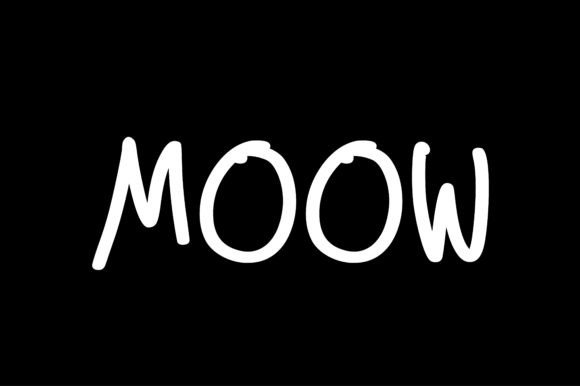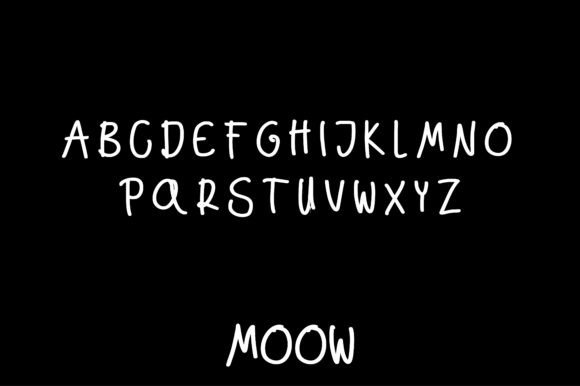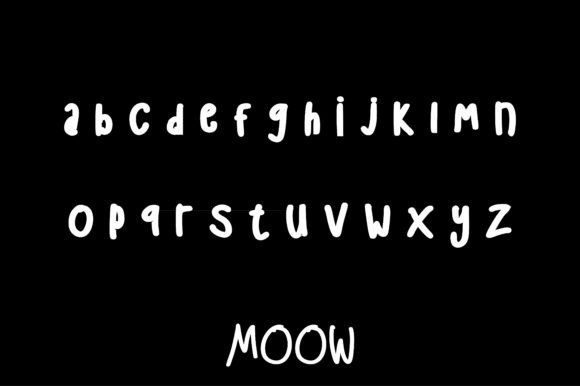
About Moow Font
Derived from the delightful inspiration found in the sound of a contented cow, Moow is a whimsical handwritten font that effortlessly infuses creativity and fun into every letter. This font is not just a typographic tool; it’s a playful expression that adds a friendly and appealing touch to your designs, creating a lighthearted atmosphere.
Moow is more than a collection of characters; it’s a conduit for creativity. Each stroke echoes the cheerful spirit of its inspiration, turning the mundane act of reading into a delightful visual experience. Whether you’re designing for a children’s book, a playful brand, or any project where a touch of whimsy is desired, Moow stands as a charming choice.
The handwritten quality of Moow brings a personal and approachable feel to your text, making it suitable for a range of applications. From greeting cards that radiate warmth to posters that exude playfulness, Moow adapts seamlessly to diverse design needs.
Imagine the versatility of Moow as it dances across the canvas of your creativity. It’s not just a font; it’s an invitation to infuse your designs with joy and spontaneity. Let Moow be the vehicle through which your ideas are not only communicated but celebrated with a touch of humor and charm.
Incorporating Moow into your designs is like adding a splash of sunshine – it lifts spirits, evokes smiles, and transforms ordinary words into a playful symphony. So, whether you’re working on branding, invitations, or any project that calls for a dose of cheer, let Moow be your go-to choice for a handwritten font that brings a delightful twist to every design endeavor.